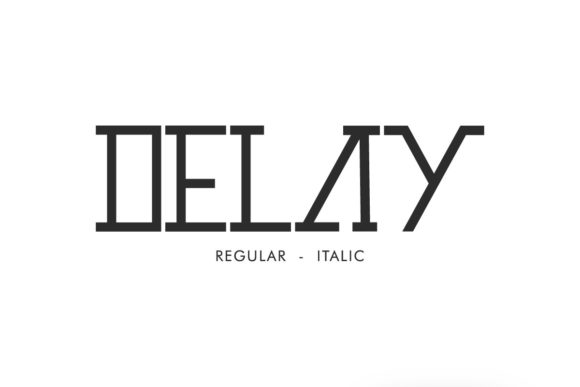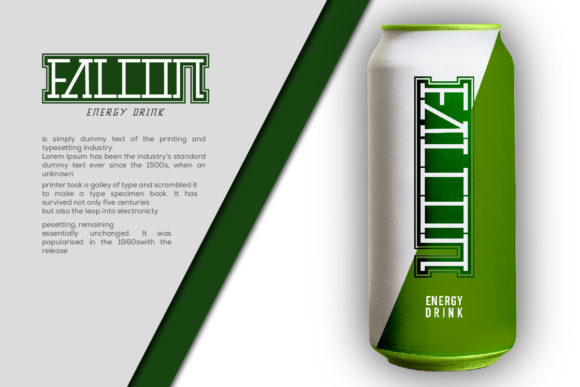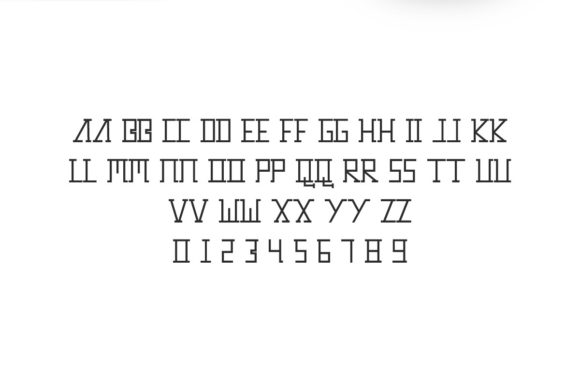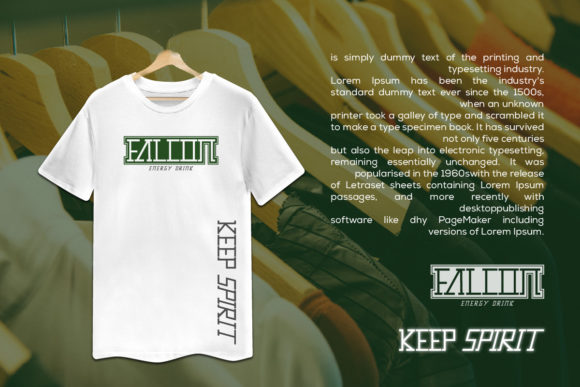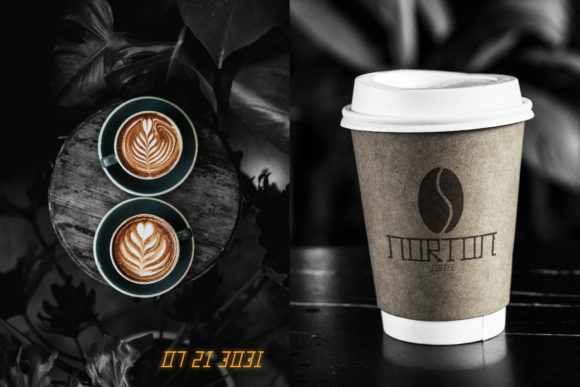
Delay Font
Delay is a cool and minimalistic slab serif. This font is ideal for writing web designs, business cards, or pretty much anything else that requires a modern and unique touch.